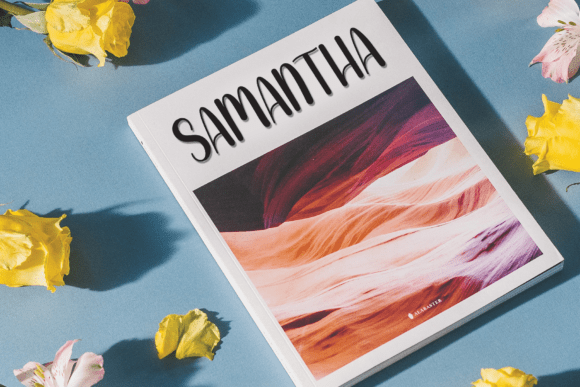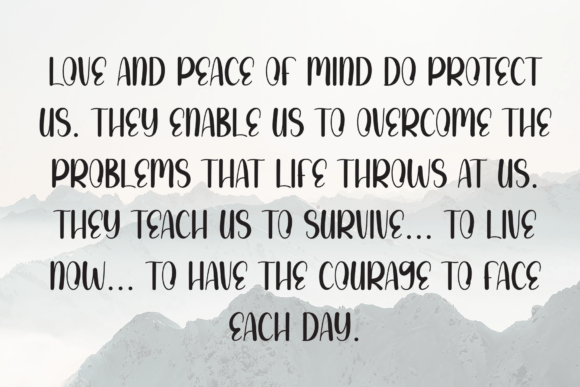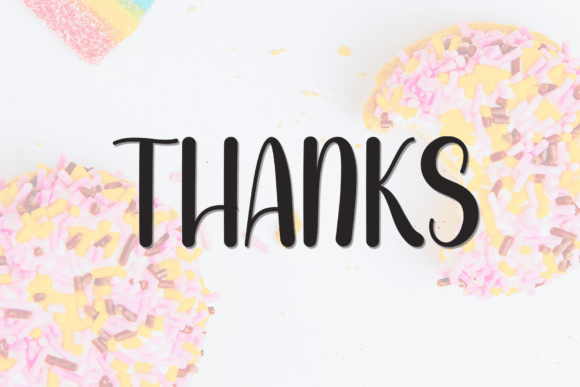
Introduction to Donut Rainbow Font
Do you remember the excitement of planning a birthday party or a fun event, only to realize that the perfect design element was just out of reach? The thrill of searching for the perfect font, color scheme, or graphics can be a daunting task, especially when you’re short on time. But what if I told you that there’s a design resource that can instantly give your project a playful, whimsical touch? Enter the Donut Rainbow Font, a delightful display font that’s sure to bring a smile to your face and a pop of color to your creative project.
This high-quality font is more than just a pretty face – it’s a valuable tool for designers and crafters alike. With its clean spacing, easy readability, and lively curves, the Donut Rainbow Font is perfect for a wide range of applications, from bakery branding and kids’ packaging to party posters and social content. And the best part? It’s available for free download, making it an accessible design resource for anyone looking to add a touch of personality to their project.
Key Features of Donut Rainbow Font
- High-quality font with a unique donut-inspired design, perfect for creative projects and adding a playful touch.
- Includes a transparent background, allowing for easy customization and layering in designs.
- Features a bold and vibrant color scheme, making it ideal for use in illustrations, graphics, and digital art.
- Designed to be scalable, with a resolution of up to 300 DPI, ensuring crisp and clear text at any size.
- Perfect for adding a pop of color and whimsy to designs, making it a great choice for creative projects and branding materials.
Honest Review: Donut Rainbow Font
What works well is the font’s playful and vibrant personality, perfect for adding a pop of color to your designs. The transparent background option also makes it easy to use as a overlay or mask, which is a nice touch.
The font is high quality and easy to use, with clear instructions on how to install and use it. The design resource is well-made and suitable for various design applications, from social media graphics to digital art.
- Playful and vibrant personality
- High quality and easy to use
- Suitable for various design applications
Overall, I’m impressed with the Donut Rainbow Font and would recommend it to designers looking for a fun and creative design resource.
⚠️ One limitation is that the font is not suitable for formal or professional designs, as it’s a bit too playful for that type of project. However, for creative projects, it’s a great choice.
The Donut Rainbow Font is perfect for use in social media graphics, party invitations, and other creative projects where a fun and playful touch is needed. It’s also great for use in branding and marketing materials, where a high-quality and unique font is desired.